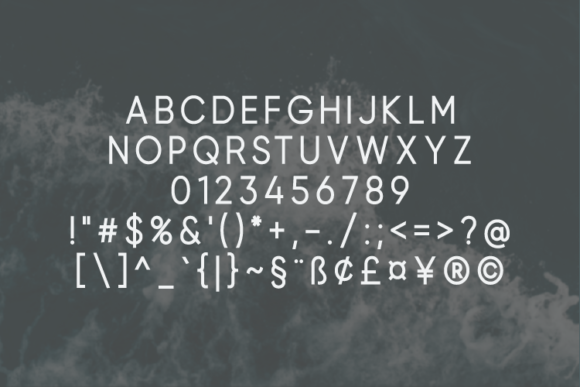
Introducing Beone Bold Font: Elevate Your Design with a Modern Sans Serif
In the world of design, fonts play a crucial role in conveying the message and aesthetic of a brand. For designers and crafters looking for a modern and sleek look, Beone Bold font is here to revolutionize your projects. Inspired by trendy minimal branding, natural cosmetic packaging design, and creamy neutral shades, Beone Bold is a game-changer.
The Inspiration Behind Beone Bold
Beone Bold font draws its inspiration from the clean lines and simplicity of modern minimal branding. This font is perfect for designers who aim to create a professional and sophisticated look for their projects. The natural cosmetic packaging design influence adds a touch of elegance, making it suitable for beauty and lifestyle brands. The creamy neutral shades that inspired Beone Bold provide a soft, yet impactful aesthetic that can be used across various design platforms.
Key Features of Beone Bold Font
- Modern Sans Serif Design: Beone Bold boasts a contemporary sans serif design that is both clean and readable. Its sleek lines make it perfect for headings, titles, and any design element that requires a bold statement.
- Versatility: This font is incredibly versatile, suitable for a wide range of projects including branding, packaging, digital media, and print materials. Whether you’re working on a logo, brochure, or website, Beone Bold can be seamlessly integrated.
- Easy to Read: Despite its bold nature, Beone Bold maintains excellent readability. This makes it an excellent choice for body text as well, ensuring your message is conveyed clearly and effectively.
- Neutral Aesthetic: The font’s design, inspired by creamy neutral shades, allows it to complement a variety of color schemes and design styles. This neutrality makes Beone Bold a valuable addition to any designer’s font library.
Why Choose Beone Bold?
In a sea of fonts, Beone Bold stands out for several reasons:
- Uniqueness: While there are many sans serif fonts available, Beone Bold’s unique blend of modern minimalism and elegance sets it apart.
- Professionalism: The font exudes professionalism, making it perfect for businesses looking to upgrade their brand image.
- Accessibility: Its clear and readable design ensures that your message is accessible to a wide audience.
Beone Bold font is a versatile and modern sans serif font that can elevate your design projects to new heights. Its inspiration from trendy minimal branding, natural cosmetic packaging, and creamy neutral shades makes it a unique addition to any designer’s toolkit. Whether you’re working on branding, packaging, or digital media, Beone Bold is sure to provide a professional and sleek look. Try Beone Bold today and discover the difference it can make in your designs.